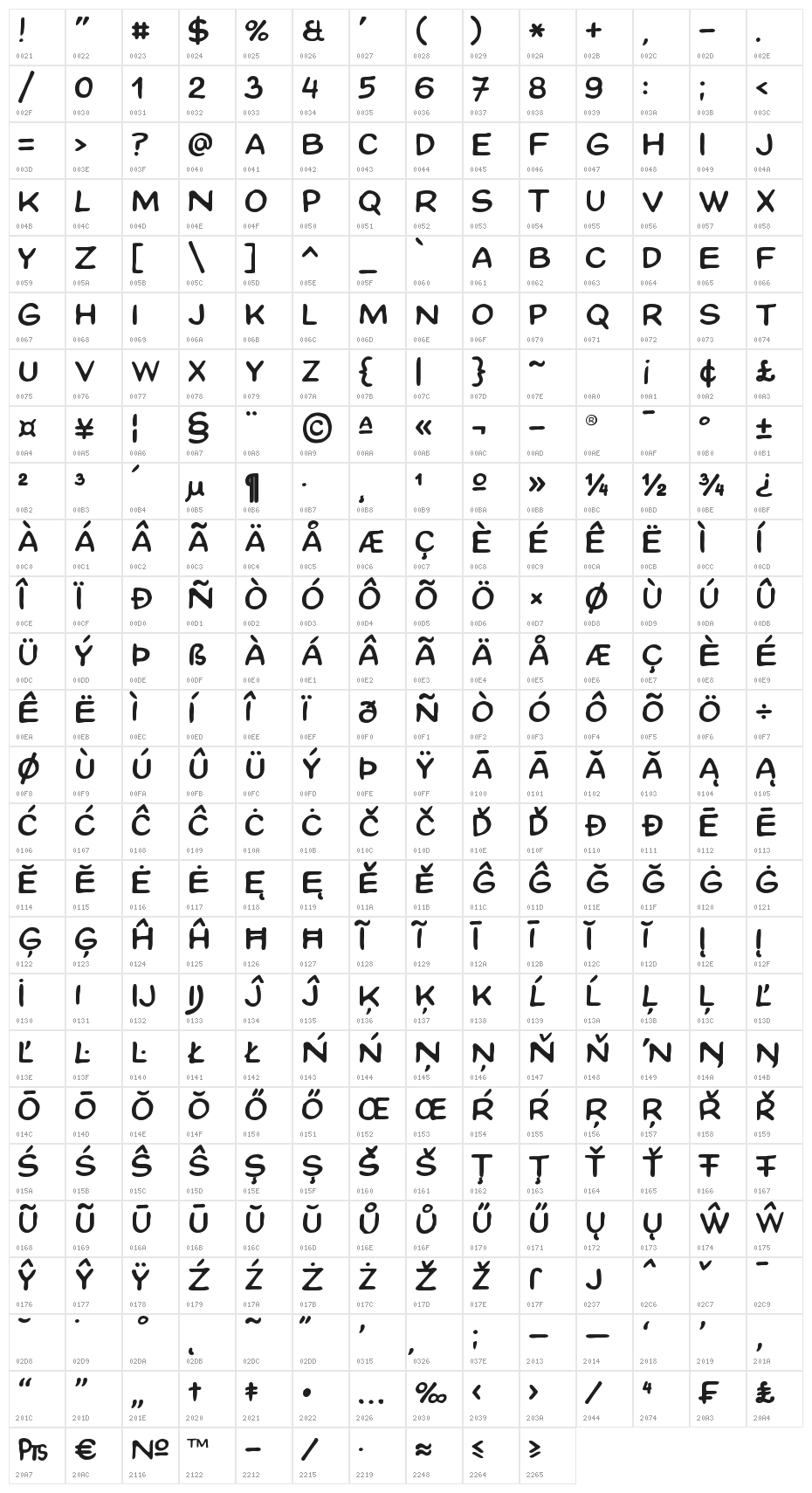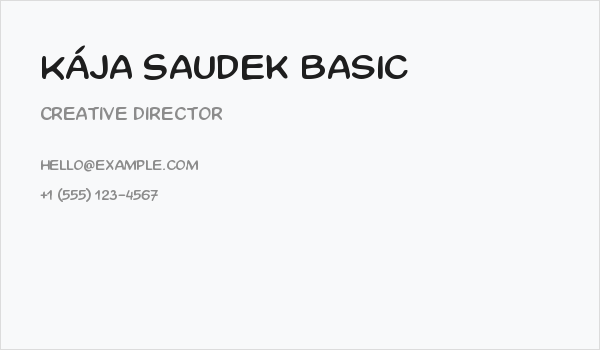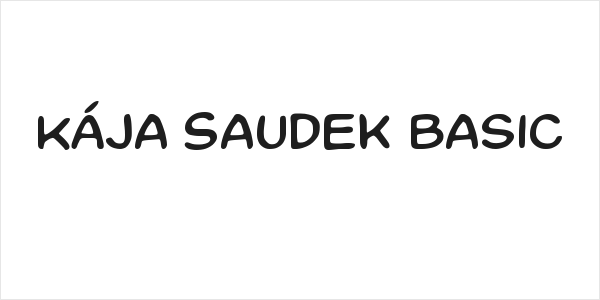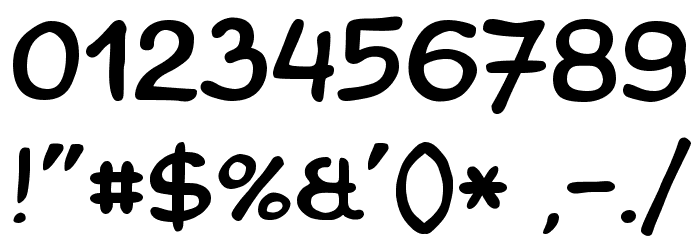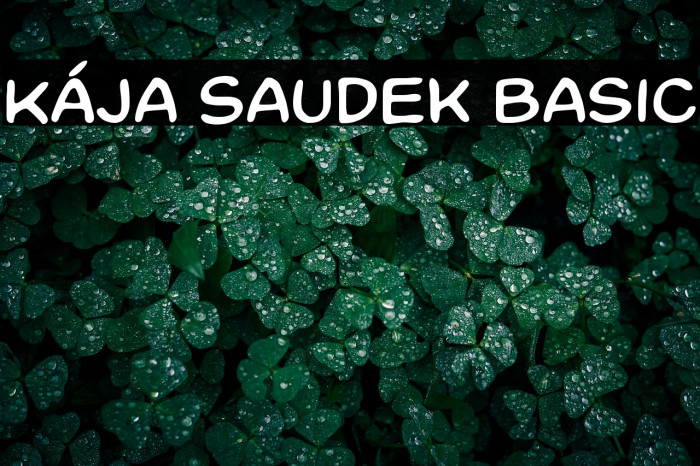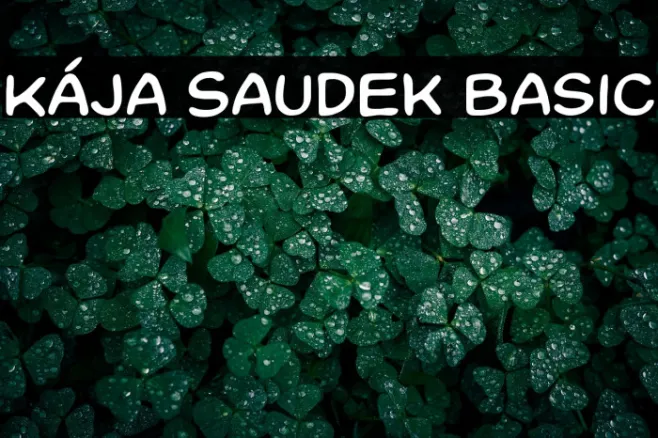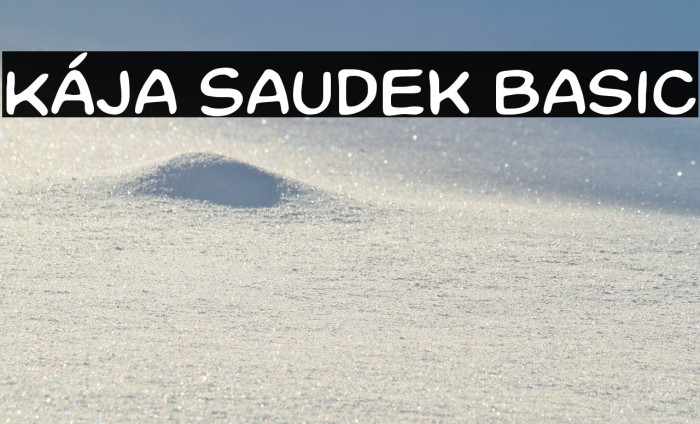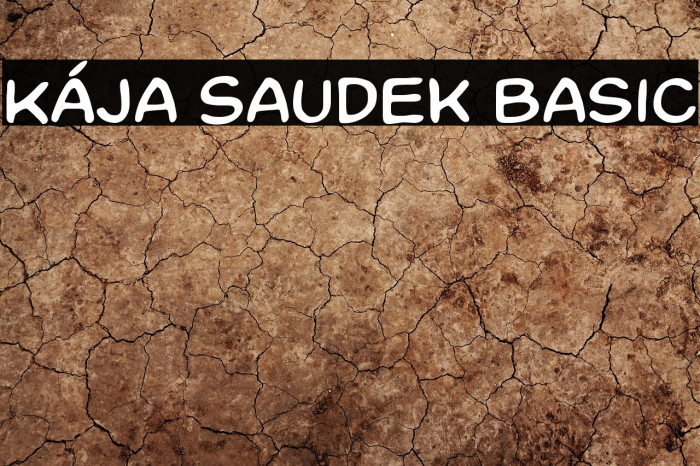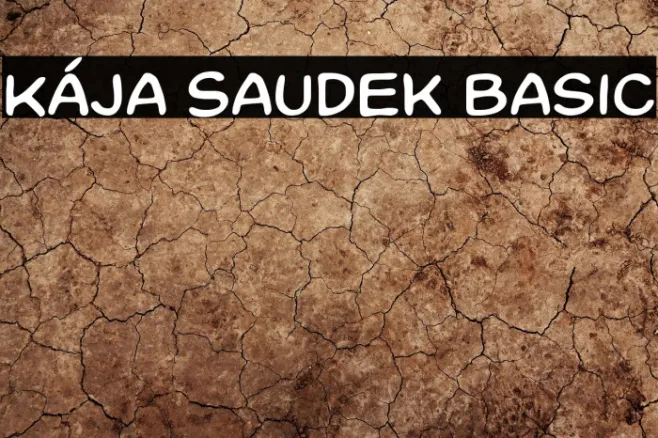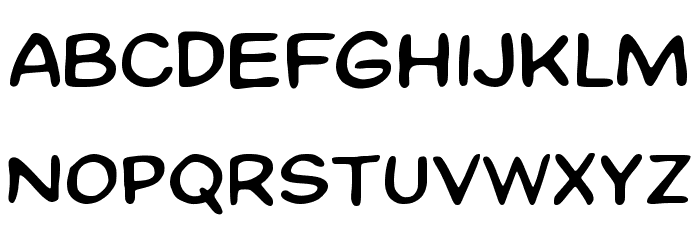
Kája Saudek Basic Font
Kája Saudek Basic Description
This font features a playful and informal style, characterized by its rounded and slightly irregular letterforms. The strokes are consistent in thickness, giving it a uniform appearance, while the rounded edges add a friendly and approachable feel. The letters are slightly tilted, enhancing its casual and handwritten aesthetic. The numerals and special characters maintain the same playful style, ensuring consistency across all characters. This font is well-suited for projects that require a touch of whimsy and creativity.
| Proposed Projects | Ideal for children's books, playful branding, casual invitations, and creative posters. |